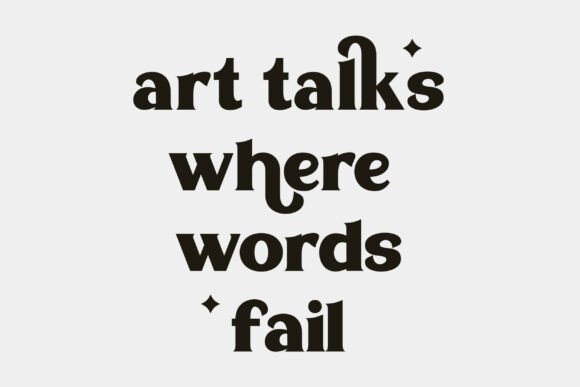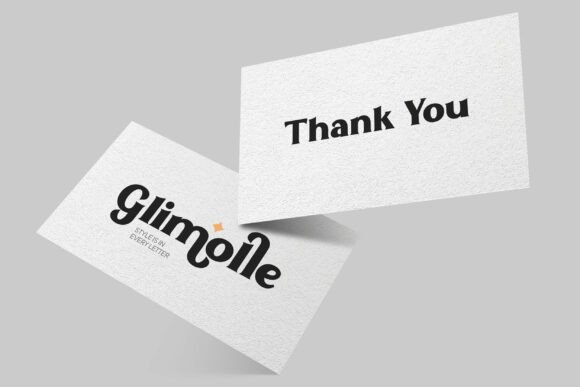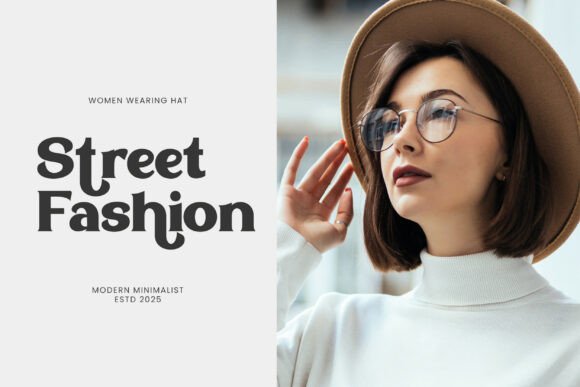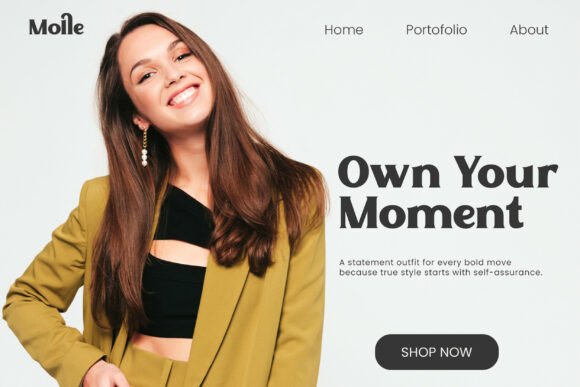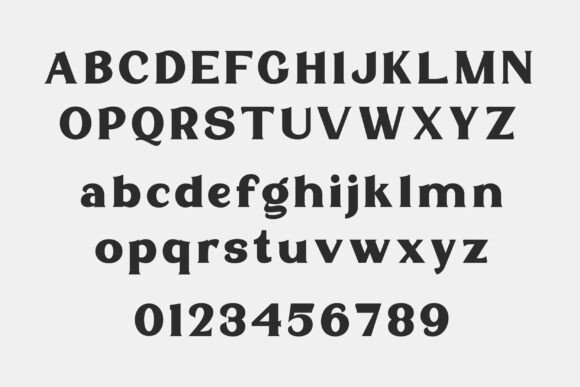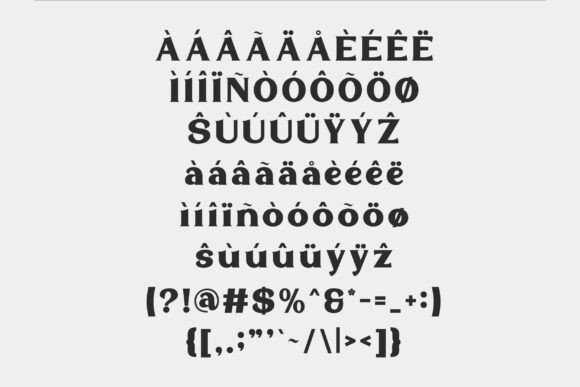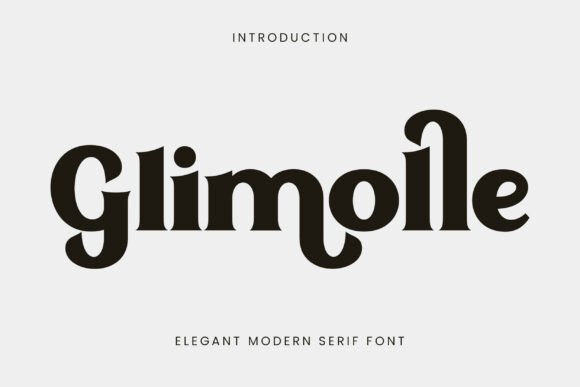
Introducing Glimolle Font: Elevate Your Design with Elegance and Sophistication
In the world of typography, a font can make or break the visual identity of a brand. For designers and crafters seeking to infuse their projects with a touch of sophistication and charm, Glimolle Font is an exceptional choice. This elegant modern serif typeface is meticulously crafted to bring refinement and style to contemporary design, making it perfect for a wide range of applications.
The Essence of Glimolle Font
Glimolle Font is a masterful blend of classic serif influence and modern aesthetics. Its graceful curves, stylish letterforms, and balanced proportions create a refined visual presence that is both sophisticated and highly readable. This harmonious balance makes Glimolle an ideal choice for designers who want to create elegant and expressive typography that captures the essence of their brand or project.
Perfect for Discerning Designers and Crafters
Glimolle Font is versatile and can be used in various design contexts, including:
- Fashion branding: Elevate your fashion brand with Glimolle’s luxurious and stylish feel.
- Editorial and magazine layouts: Add a touch of sophistication to your editorial designs with Glimolle’s elegant typography.
- Beauty & cosmetic packaging: Make your beauty and cosmetic products stand out with Glimolle’s refined and stylish font.
- Luxury product branding: Convey exclusivity and high-end quality with Glimolle’s sophisticated typography.
- Website headlines: Create a lasting impression with Glimolle’s elegant and modern font.
- Social media graphics: Elevate your social media presence with Glimolle’s stylish and refined typography.
- Logo and visual identity: Establish a strong brand identity with Glimolle’s distinctive personality.
- Posters and advertising: Make a statement with Glimolle’s elegant and expressive typography.
Font Features
Glimolle Font boasts an impressive range of features, including:
- Upper and lowercase letters: Complete character set for versatile typography.
- Numbers and punctuation: Comprehensive set of numbers and punctuation marks.
- Multilingual support: Supports multiple languages for global design applications.
The Benefits of Using Glimolle Font
Glimolle Font offers several benefits to designers and crafters, including:
- Timeless elegance: Glimolle’s classic serif influence ensures a timeless and sophisticated look.
- Modern style: The font’s modern aesthetics make it perfect for contemporary design applications.
- High readability: Glimolle’s balanced proportions and clear letterforms ensure high readability.
- Versatility: Suitable for a wide range of design applications, from fashion branding to editorial layouts.
| Font Name | Glimolle Font |
| Author | Qiubare Studio |
Glimolle Font is an exceptional choice for designers and crafters seeking to elevate their projects with elegance and sophistication. Its unique blend of classic serif influence and modern aesthetics makes it perfect for a wide range of design applications. With its smooth flow, subtle decorative touches, and high readability, Glimolle Font is sure to make a lasting impression.
Whether you’re working on a fashion brand, editorial layout, or luxury product packaging, Glimolle Font is the perfect choice for adding a touch of timeless elegance and modern style to your design.